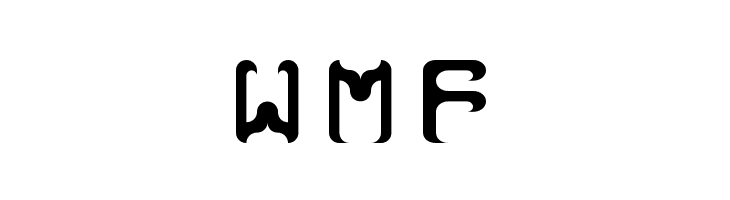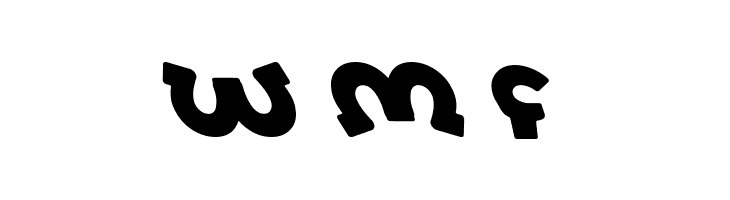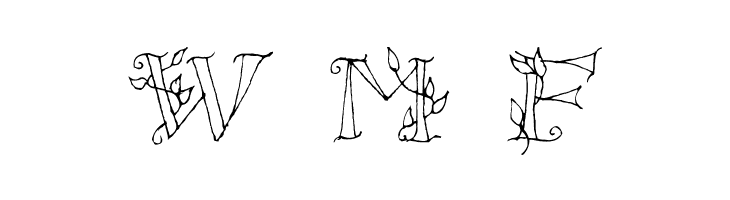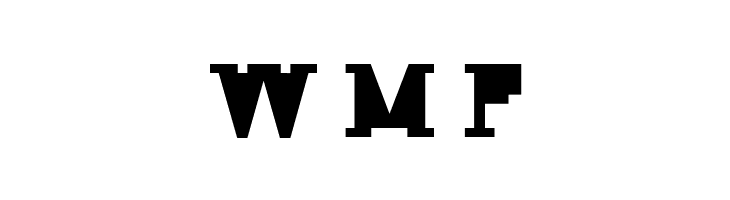
A modern, striped font with bold geometric shapes and a dynamic linear texture.
A bold, playful font with a leftward slant and rounded characters.
A bold, geometric font with strong, thick strokes and a distinctive character set.
A bold, expanded font with thick strokes and strong presence.
A dynamic, expanded italic font with bold strokes and moderate contrast.
A dynamic and elegant italic font with moderate contrast and a stylish appearance.
A bold, futuristic 3D italic font with angular, geometric shapes and a dynamic appearance.
A bold, heavy font with uniform thickness and strong visual impact.
An elegant italic outline font with a sophisticated and artistic style.
A futuristic, geometric font with rounded edges and uniform strokes.
A decorative font with lizard-like embellishments on each character.
A decorative font with whimsical and artistic elements, featuring loops and swirls.
A bold, geometric font with a vintage Americana vibe and modern appeal.
A bold serif font with angular serifs and a strong, modern aesthetic.
A bold, geometric font with rounded edges and a modern aesthetic.
A bold, geometric font with a vintage yet modern appeal.
A bold, geometric font with a strong, modern presence.
A narrow, italicized font with medium contrast and a modern style.
A bold, geometric, and condensed font with rounded corners and a modern industrial feel.
An ornate and decorative font with calligraphic influences, featuring intricate swirls and loops.
A bold, angular font with a modern yet classic style.
A bold, rounded, and modern font with a playful and approachable style.